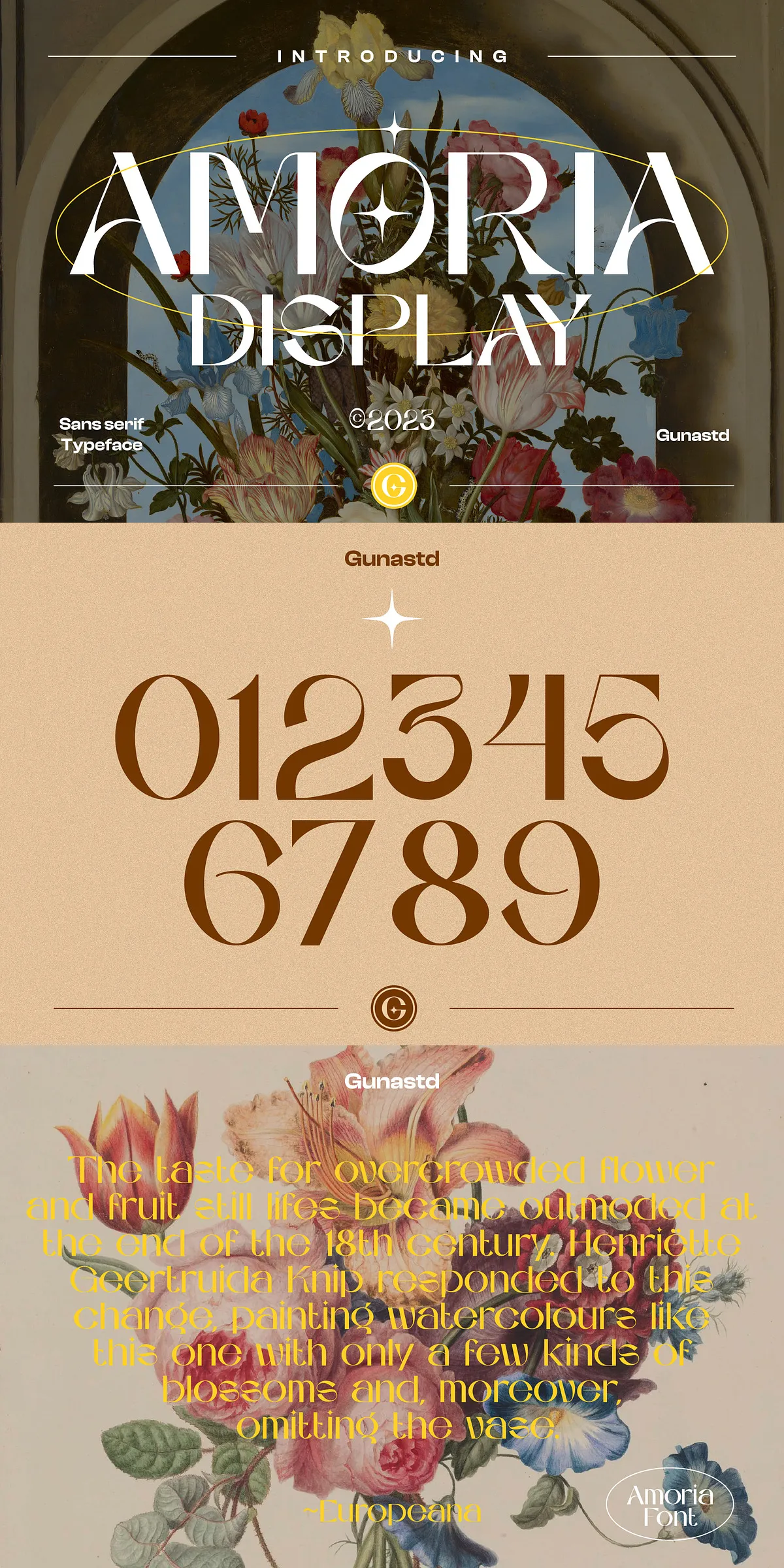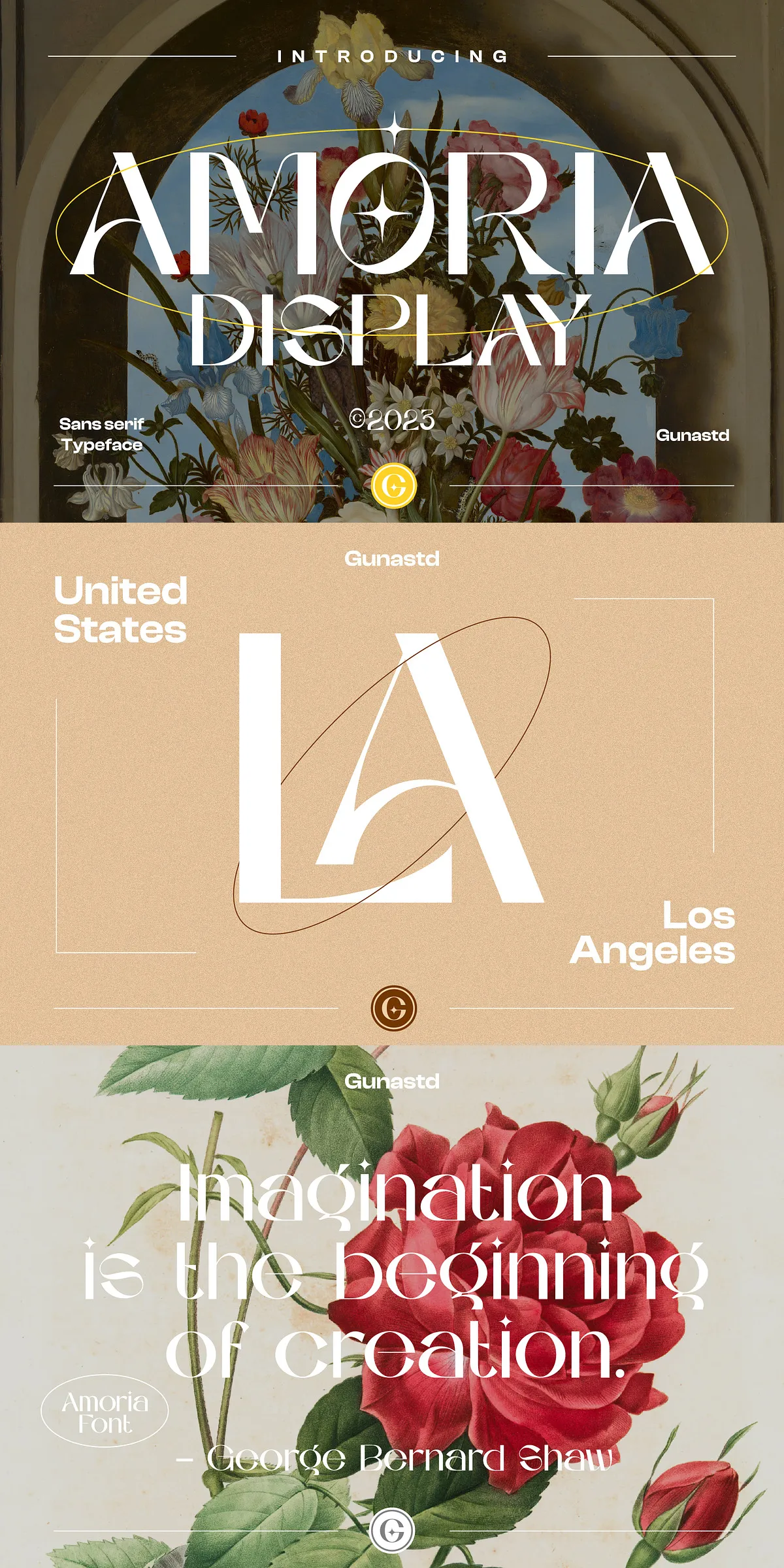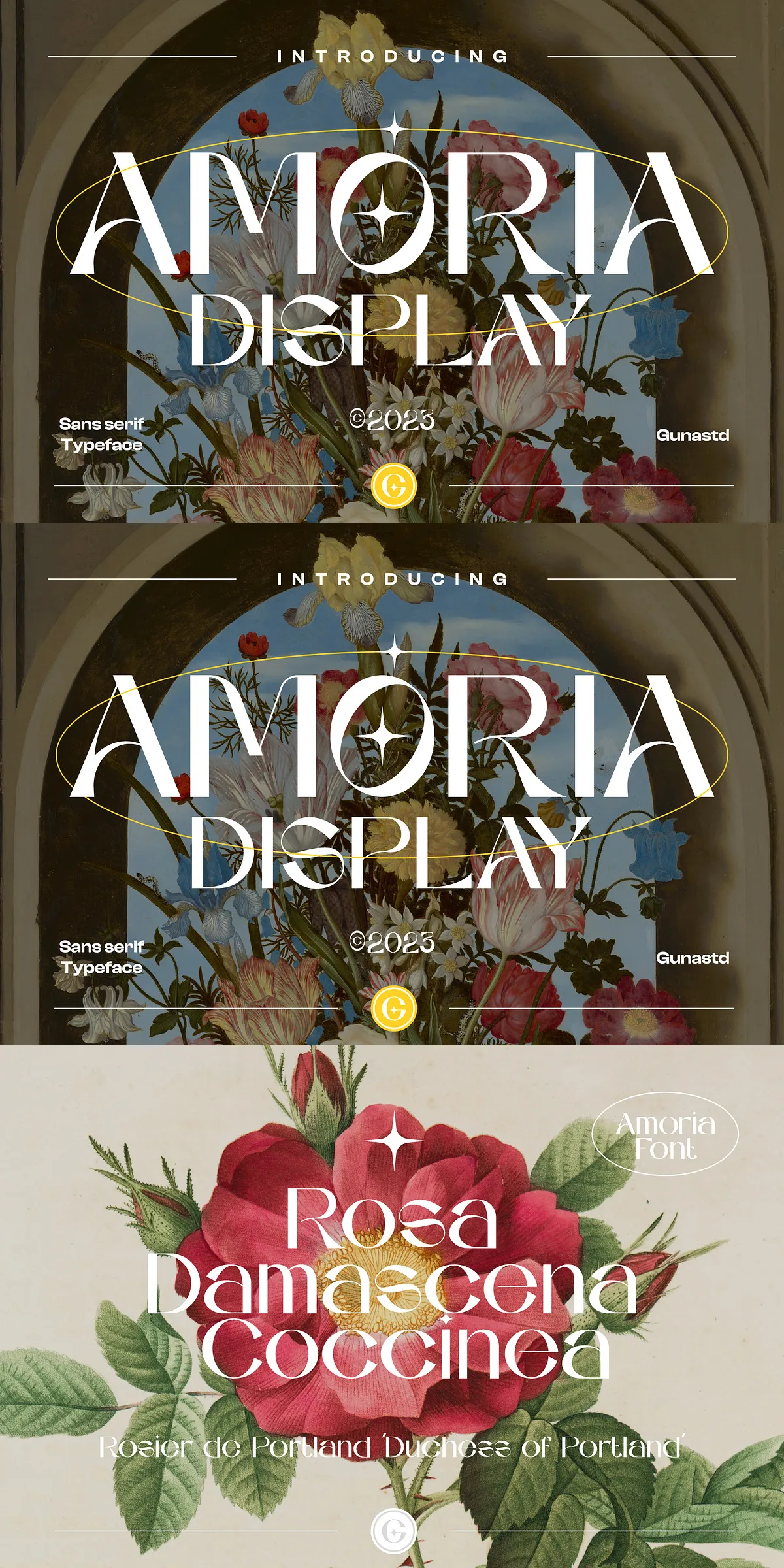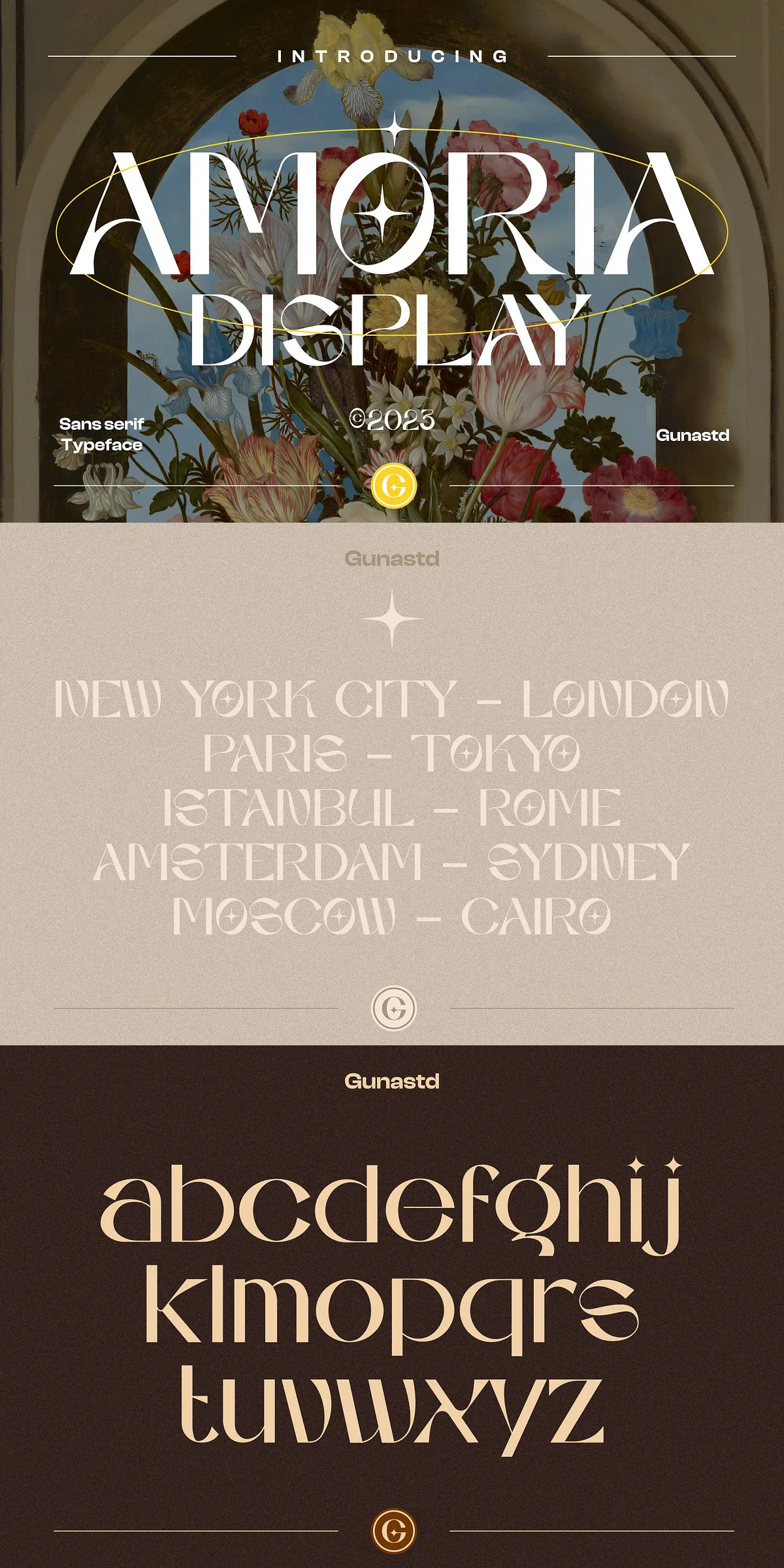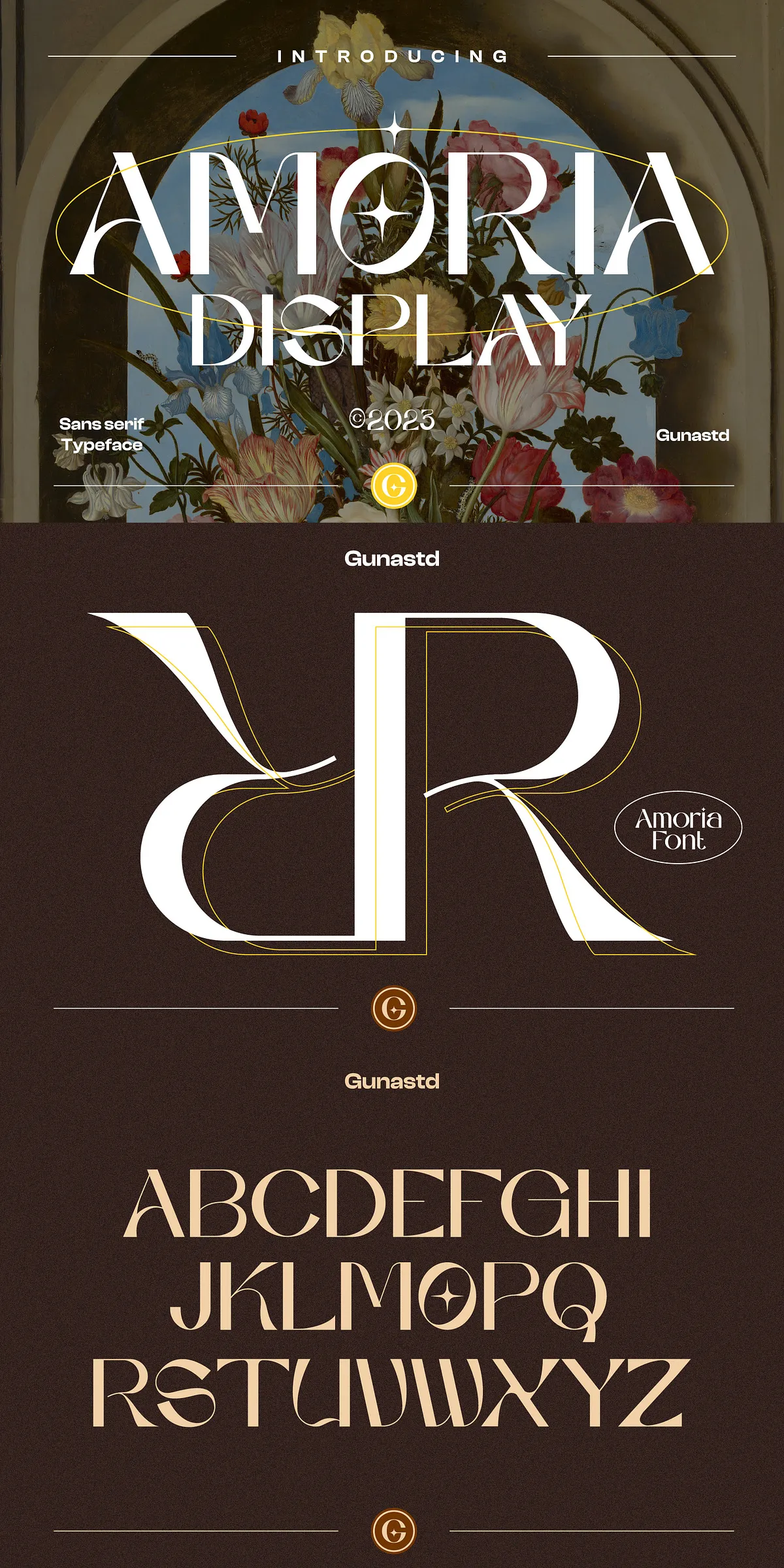
AMORIA is a polished display sans serif crafted to deliver clear impact across visual identities, print materials, and digital campaigns. Designed with refined letterforms and confident proportions, AMORIA thrives at headline sizes and brand marks where presence and legibility matter most. Use AMORIA to anchor logos, invitations, posters, packaging, and hero graphics with a contemporary yet timeless tone.
Why Choose AMORIA For Your Next Creative Project
AMORIA emphasizes clarity, balance, and adaptability. The letterforms maintain strong visual rhythm while allowing generous display treatments—tight tracking, bold color, or layered textures—without losing legibility. Designers will find AMORIA particularly effective when they need a versatile display face that reads cleanly on screen and prints crisply on paper. The font actively supports fast production workflows: it scales predictably, pairs easily, and responds well to common typographic transforms such as uppercase titling and condensed tracking for compact layouts.
- Optimized for display sizes with consistent stroke contrast and open counters.
- Clear numerals and punctuation suitable for editorial and packaging work.
Practical Applications And Design Use Cases
AMORIA fits a wide spectrum of creative tasks where a refined, attention-grabbing typeface improves communication. Apply the font to:
- Logotypes and brand identity systems seeking a modern, elegant voice.
- Wedding invitations and stationery that require a formal but fresh appearance.
- Posters, flyers, and advertising artwork that demand high-impact headlines.
- Product packaging and labels where typography must perform at multiple scales.
- Social media graphics and headers where on-screen clarity drives engagement.
Design Tips For Maximizing AMORIA’s Impact
Use AMORIA boldly at large sizes for primary headlines and logotypes. Pair the face with a neutral body text font—a humanist sans or a warm serif—to balance display character and reading comfort. When composing invitations or editorial spreads, exploit contrast by using AMORIA for headings and a lighter, highly readable face for long passages. Tight letterspacing can create an elegant compact look for titles, while increased tracking will enhance clarity on textured print stocks.
Multilingual Support And Character Coverage